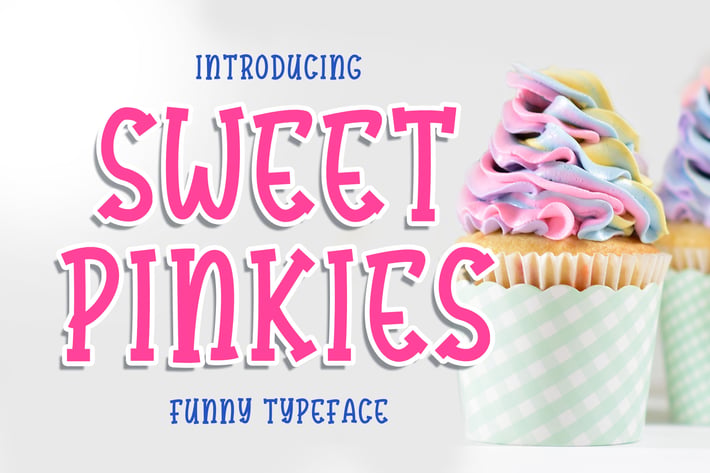
Sweet Pinkies - Funny Typeface
Introducing of our new product the name is Sweet Pinkies Funny Typeface. Sweet Pinkies inspired combine the serif slab style with a fun theme very good for food design, restauran menu, kids poster, flyer childrenbook, cartoon, comic etc